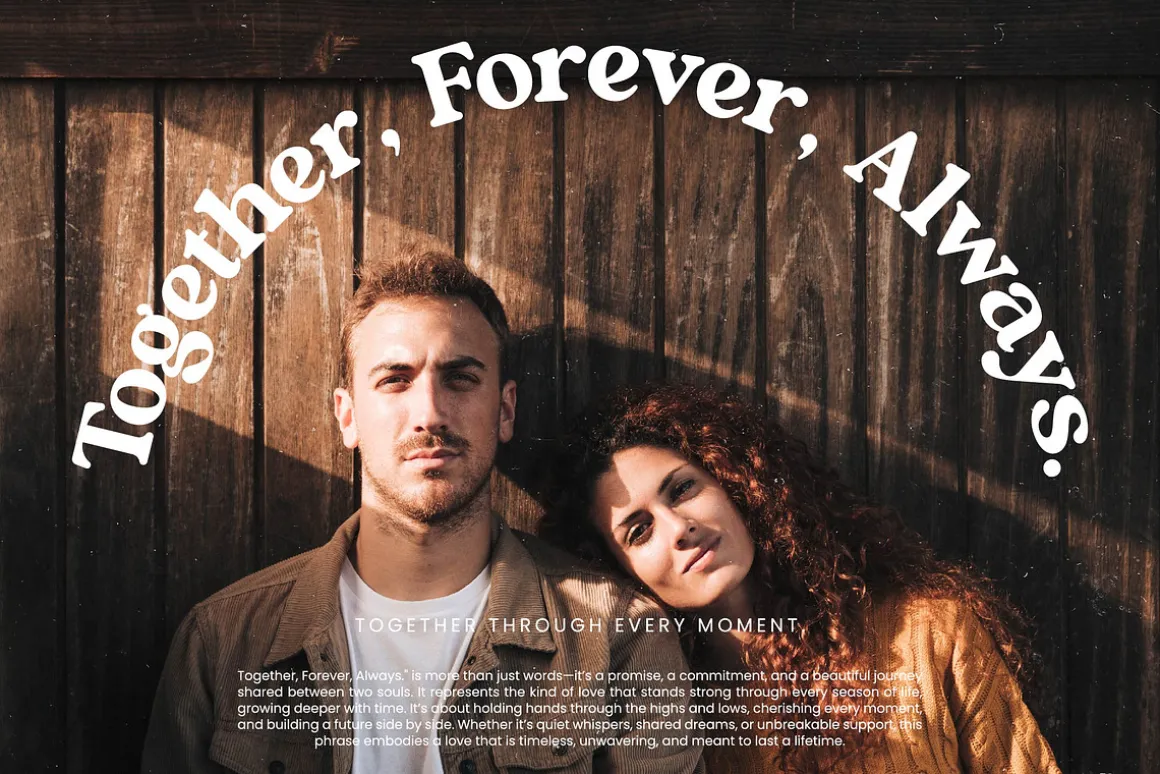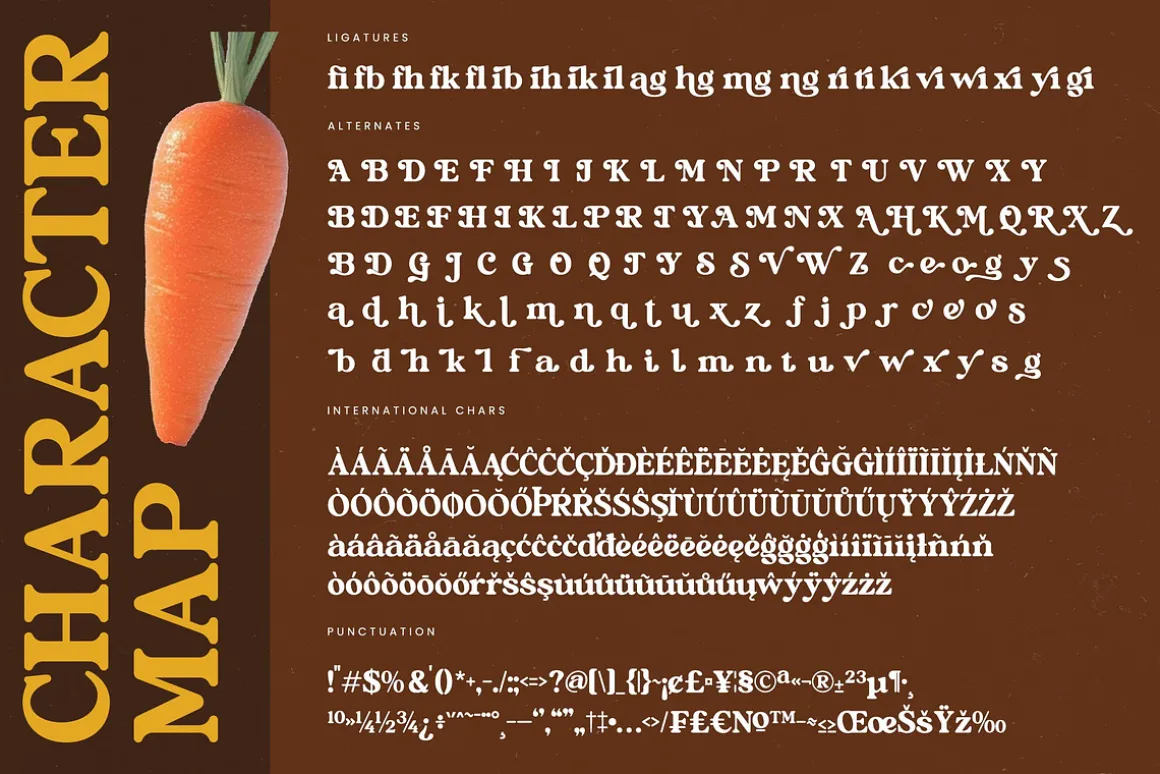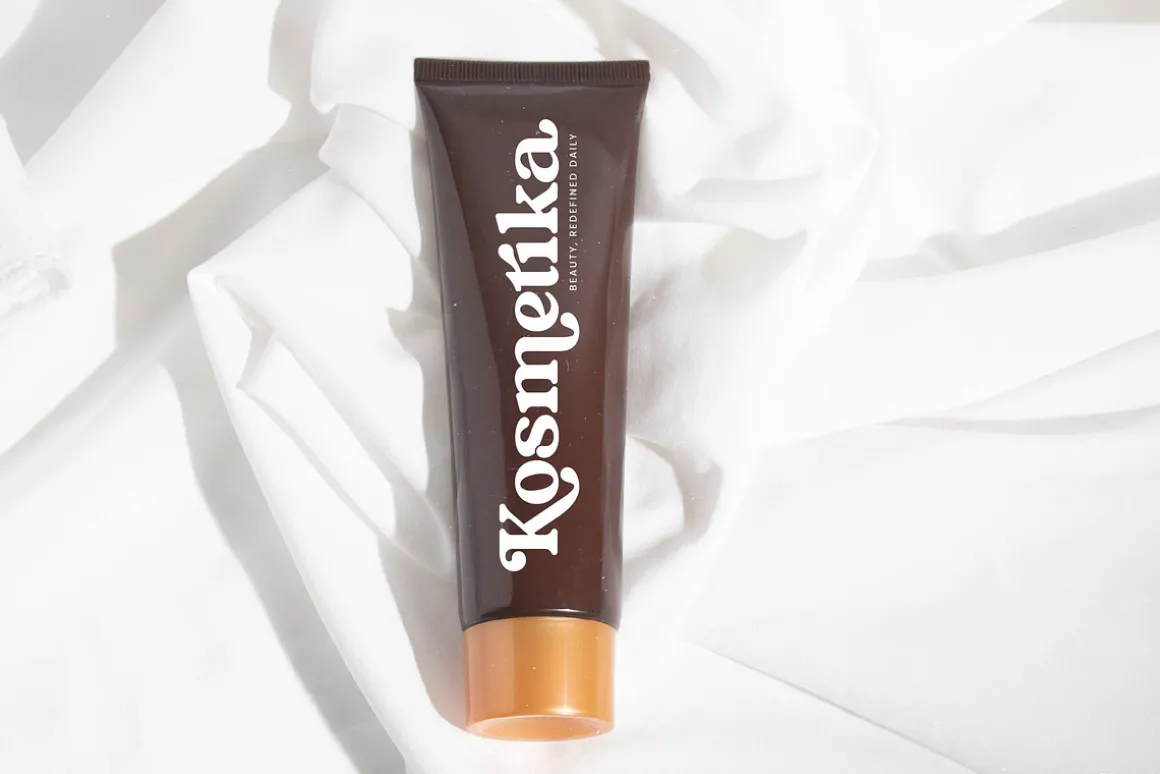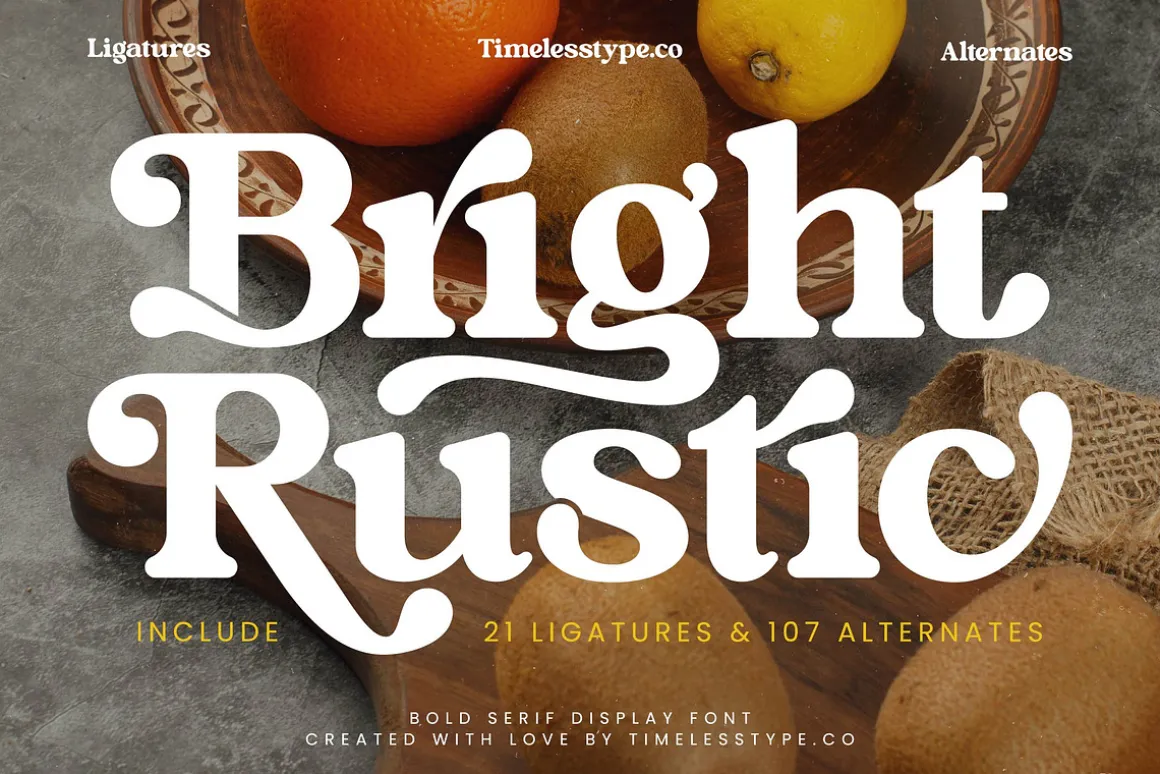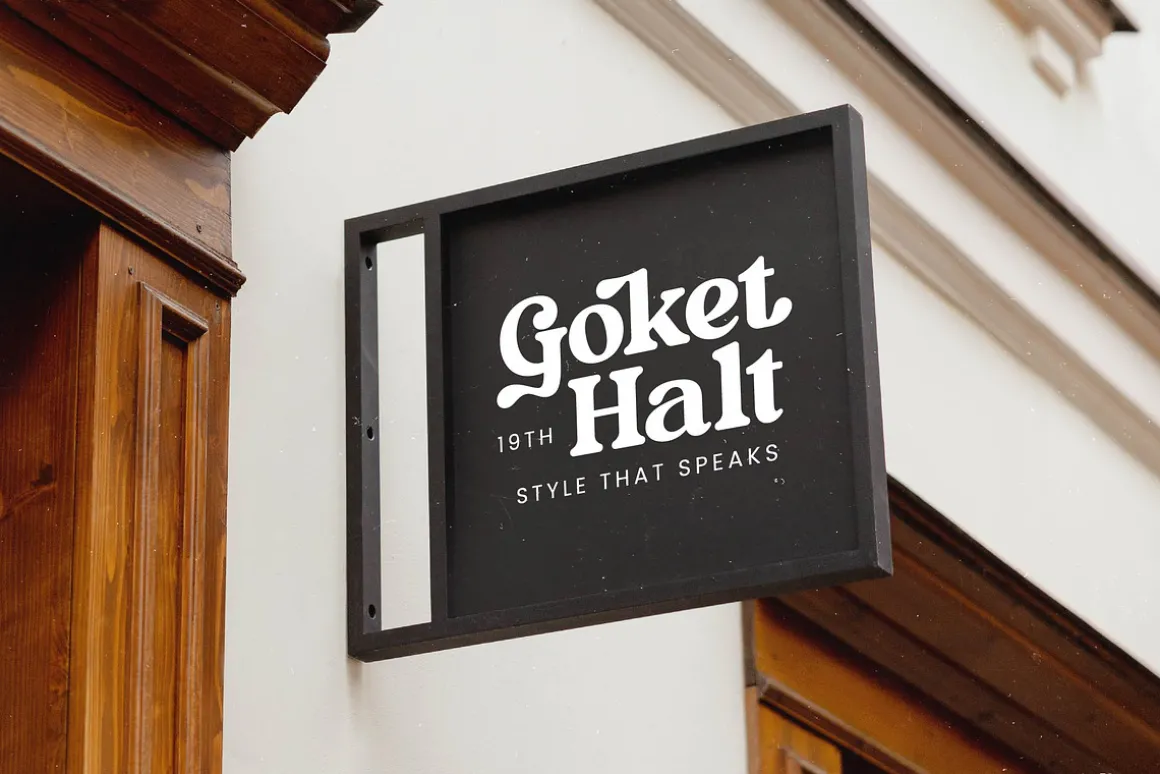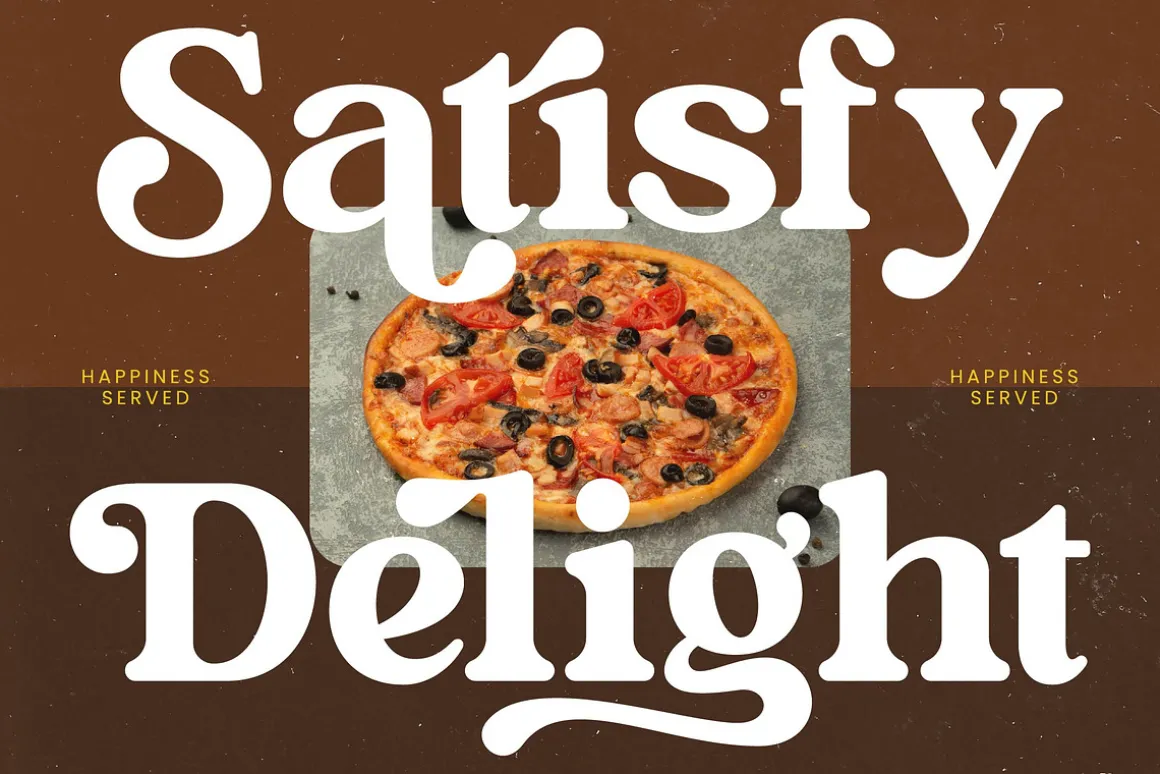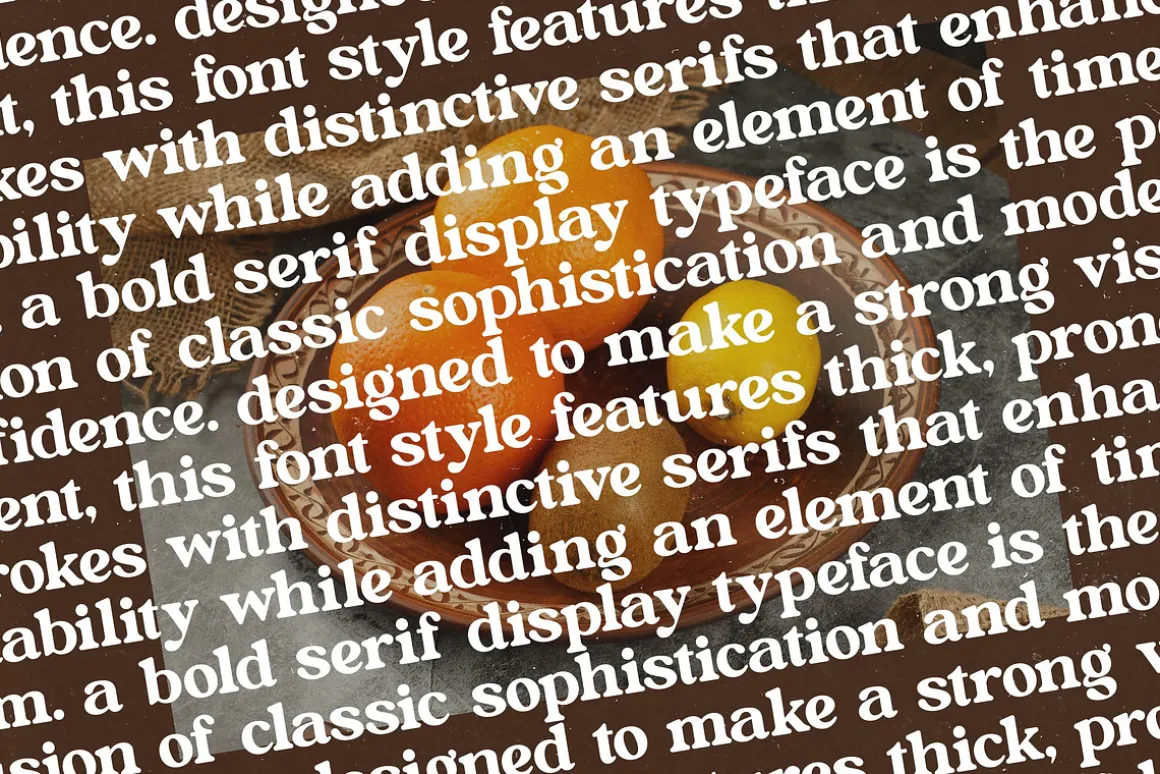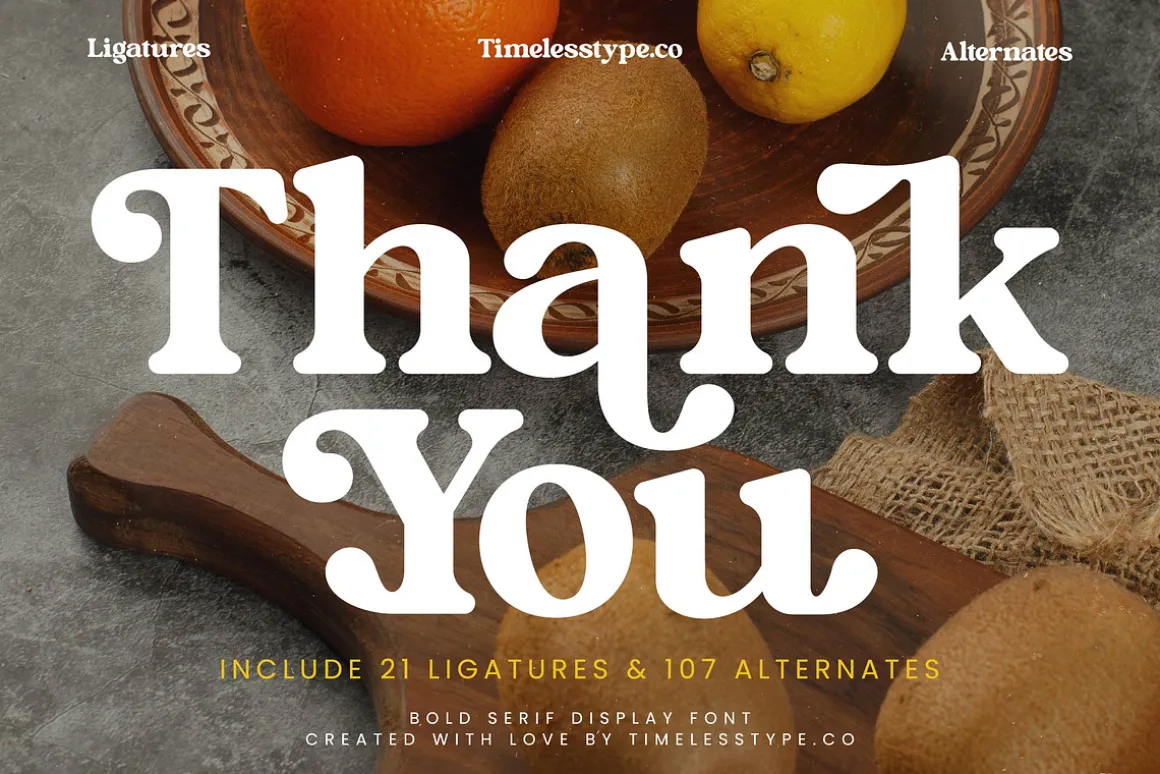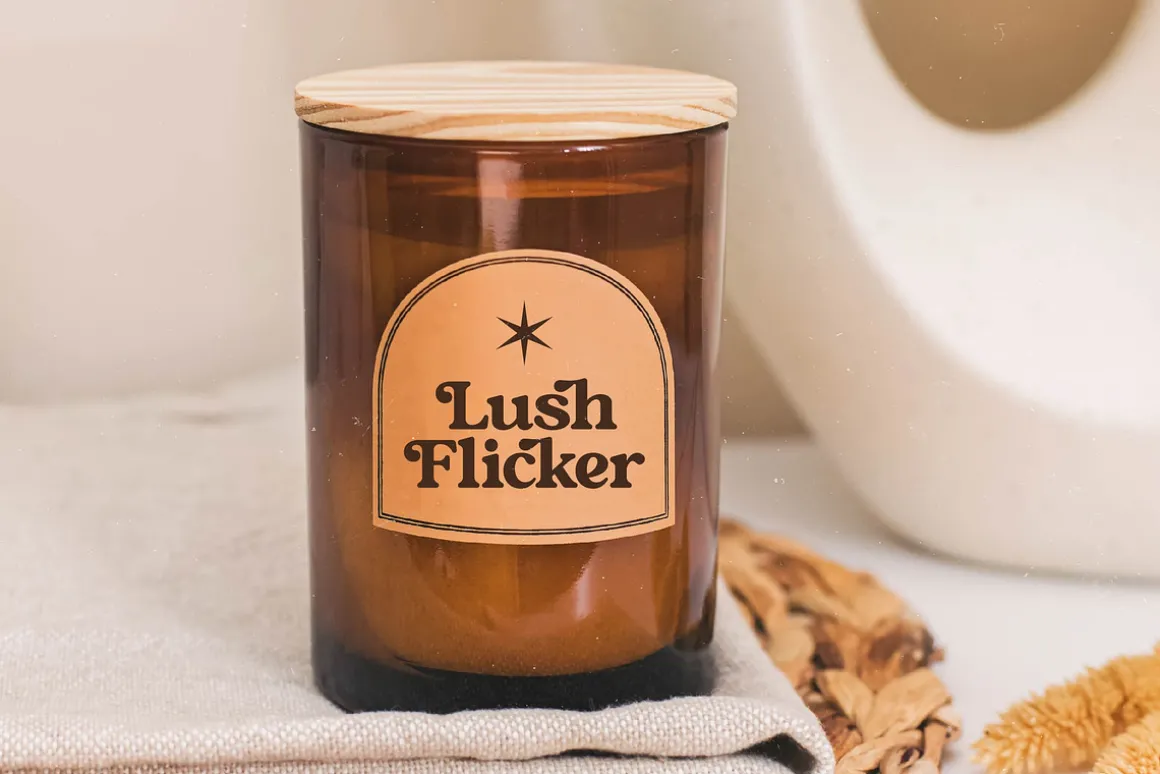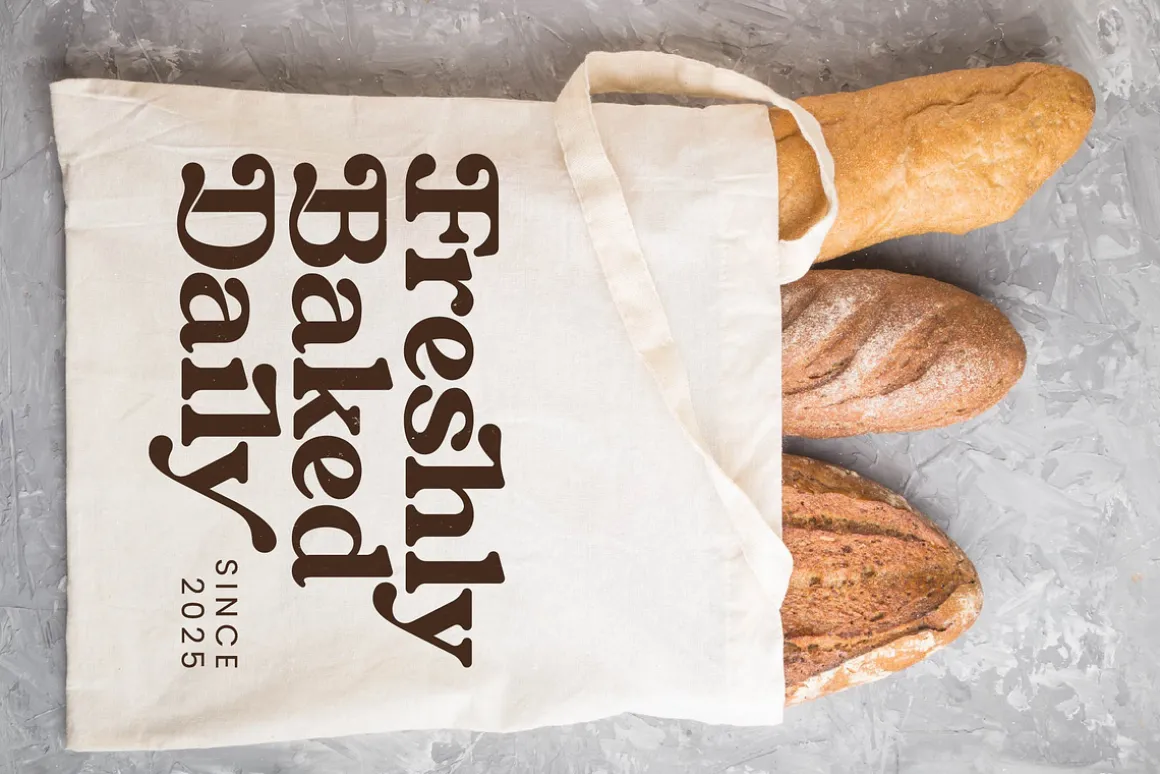
Experience the soul-stirring charm of Bright Rustic, a typeface designed to bridge the gap between earthy warmth and high-end sophistication. It is more than just a font; it is a visual invitation to a world where elegance meets the raw beauty of nature.
Drawing inspiration from sun-drenched orchards and the tactile textures of handcrafted pottery, this font captures an organic rhythm. Each stroke echoes the intentionality of artisanal craftsmanship, blending traditional roots with a contemporary, high-fashion edge.
This modern serif display commands attention with its luxury typography and high-contrast serif details that make every word feel like a headline. It provides an immediate branding impact for projects that require a unique, editorial font personality that refuses to be ignored.
Perfectly aligned with the current modern serif trend, this typeface addresses the growing demand for editorial display fonts that feel human and grounded. It is the ultimate choice for designers seeking character-driven typography that breaks away from sterile minimalism.
From high-end logo design and heritage branding to artisanal packaging, this font thrives in diverse environments. It adds a touch of timeless class to wedding invitations, editorial layouts, and luxury fashion campaigns.
Unlock a world of creative possibilities with 21 ligatures and 107 alternates that allow for deep customization. The set includes beautiful swashes and full multilingual support with international characters to ensure your message reaches a global audience.
- Ligature 21 Alternate 107
- Numerals
- Punctuations (OpenType Standard)
- Accents (Multilingual Characters)
- Ligatures and Alternative Style Stylistic Set